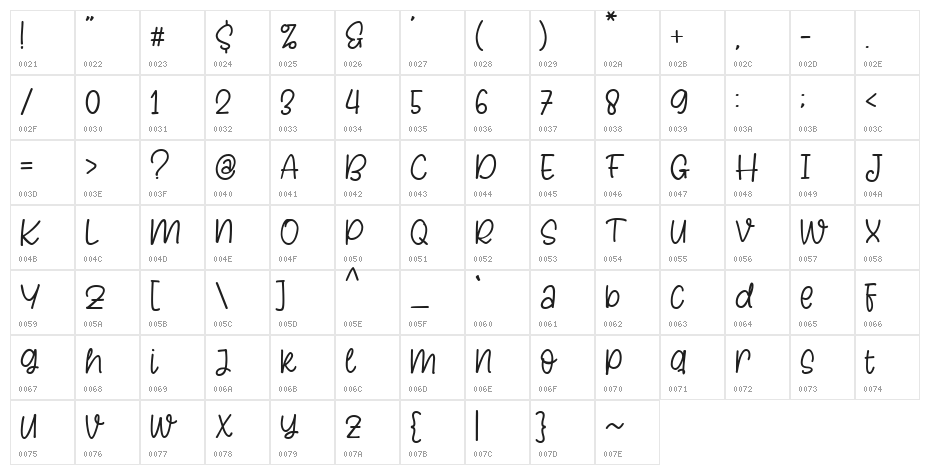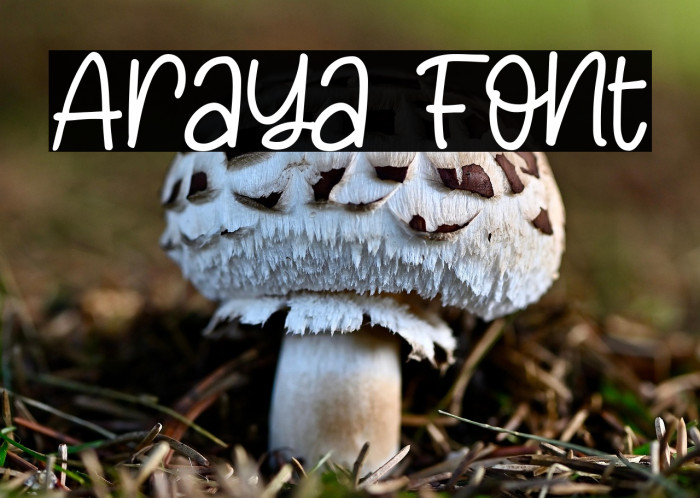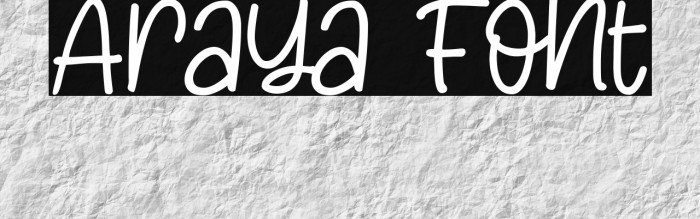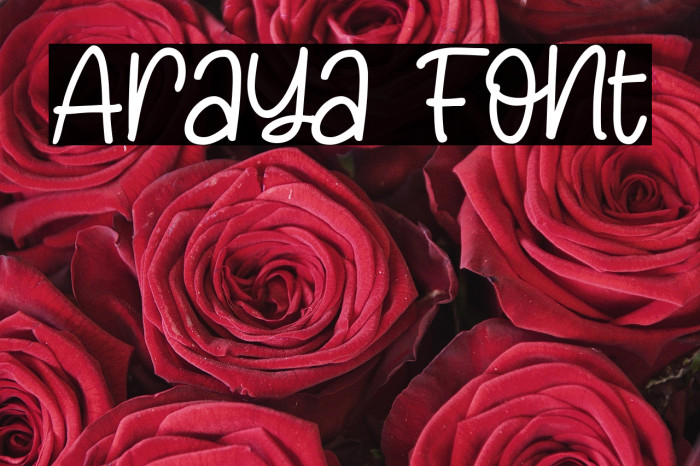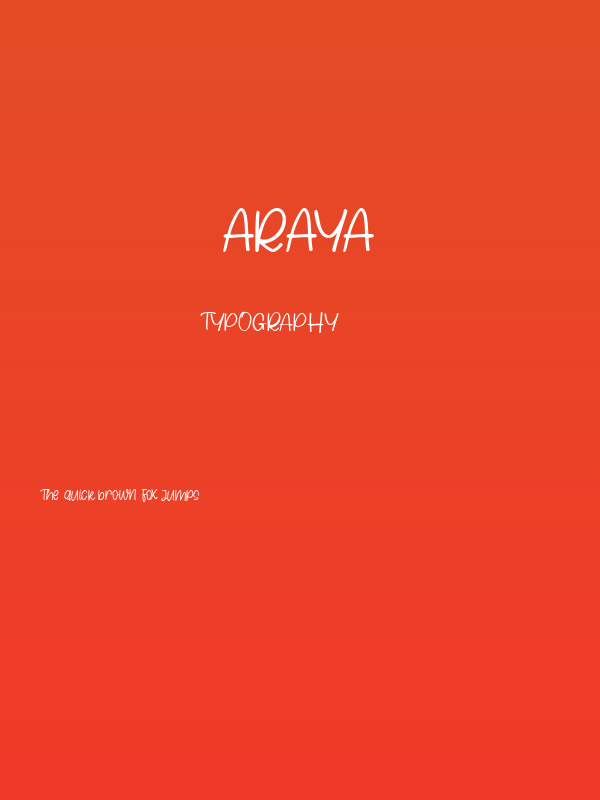
Araya Font
Araya Description
This font features a playful and casual handwritten style, characterized by its smooth, flowing curves and slightly irregular letterforms. The uppercase and lowercase letters maintain a consistent style, with rounded edges and a slight slant that gives a sense of movement and energy. The numerals and special characters are designed to match the overall aesthetic, ensuring a cohesive look across all text elements. The font's informal and friendly appearance makes it suitable for projects that require a personal touch or a relaxed vibe.
| Overall Style | Casual |
| Use Case | Headlines, Logos, Invitations |
| Proposed Projects | Ideal for greeting cards, invitations, personal branding, and social media graphics. |